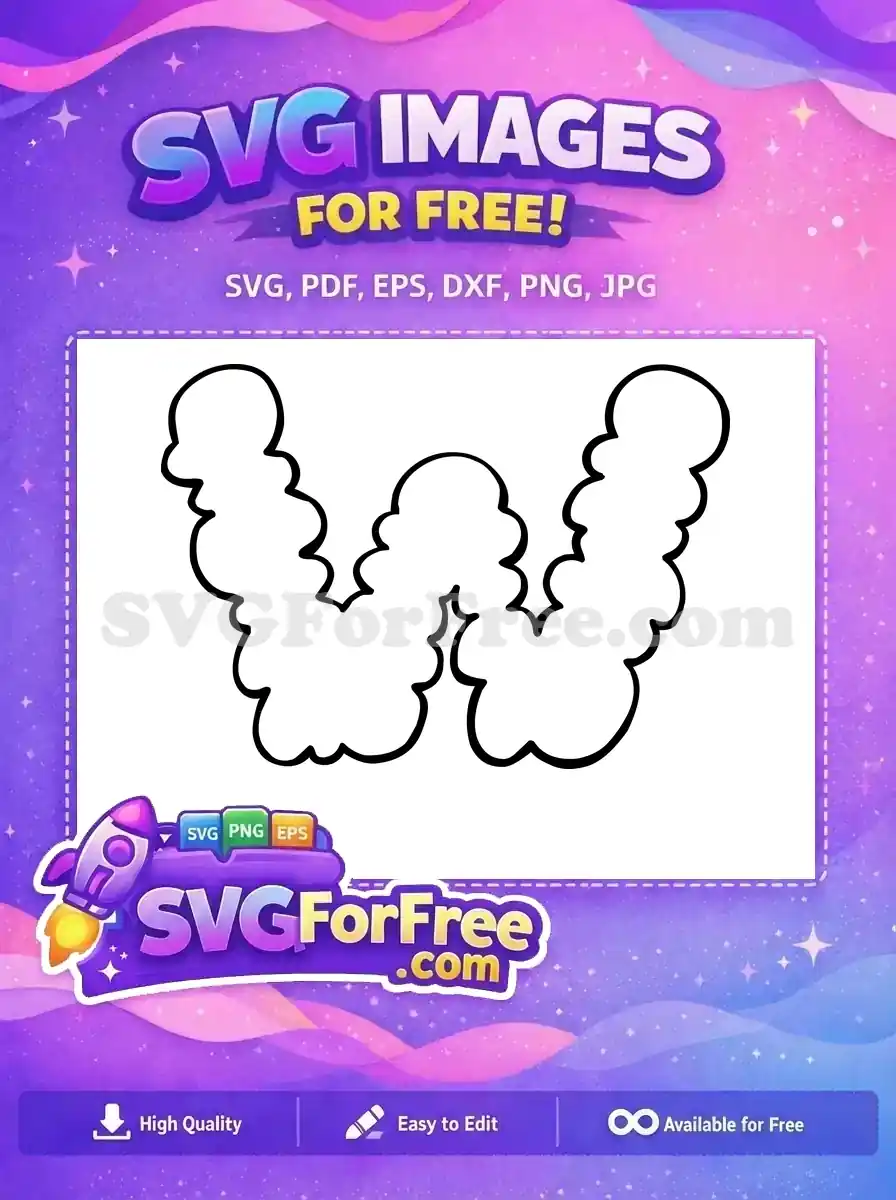
Free W Bubble Font Free Letter Alphabet Free SVG – Instant Download
Bubbly and wide letter W character, provided as a no-cost vector graphic.
Free W Bubble Font Free Letter Alphabet Free SVG